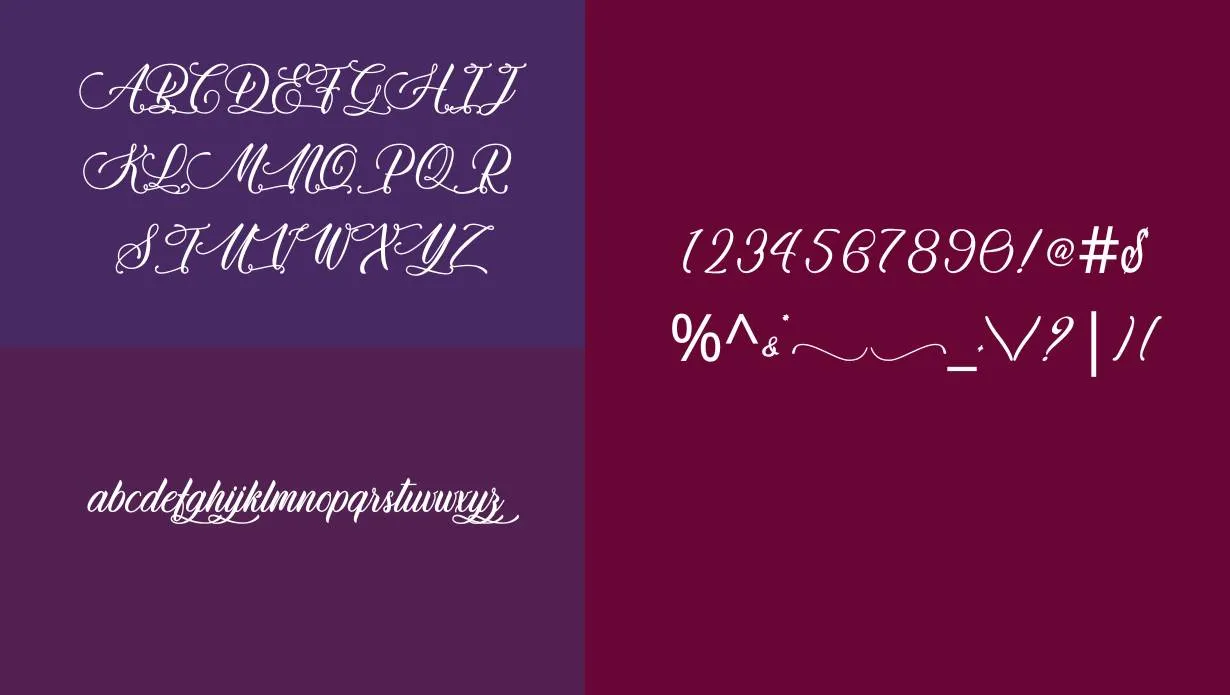
Qwerty Ability Font is like a keyboard of possibilities for your words. Each letter holds the potential for endless combinations, like keys to creativity. When you use Qwerty Ability Font, it’s like having a canvas waiting to be painted with endless choices.
Imagine the versatility of a paint palette, giving your words a creative and expressive feel. Pick Qwerty Ability Font when you want your writing to have the charm of endless possibilities, allowing your creativity to shine.